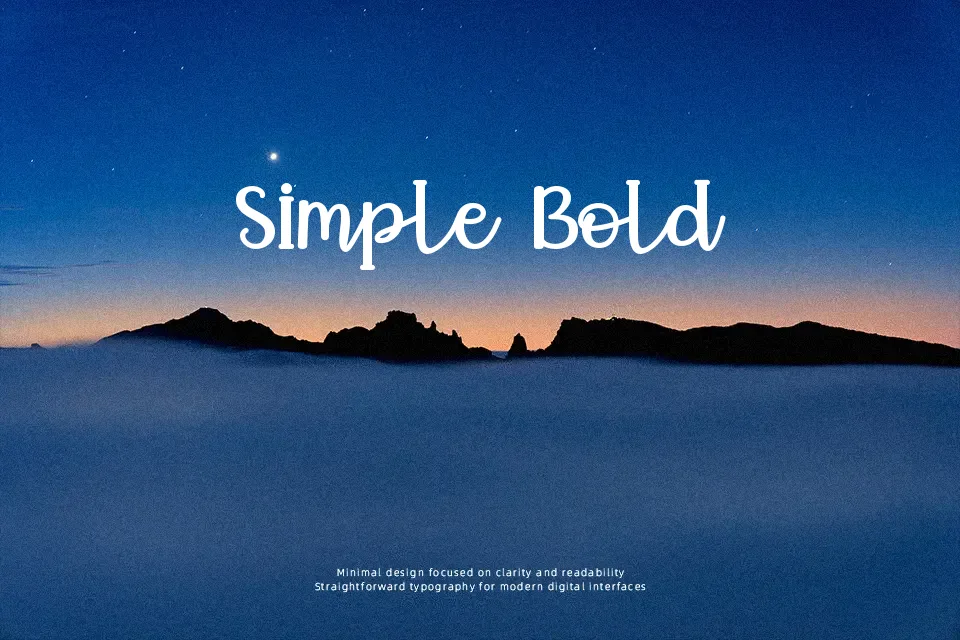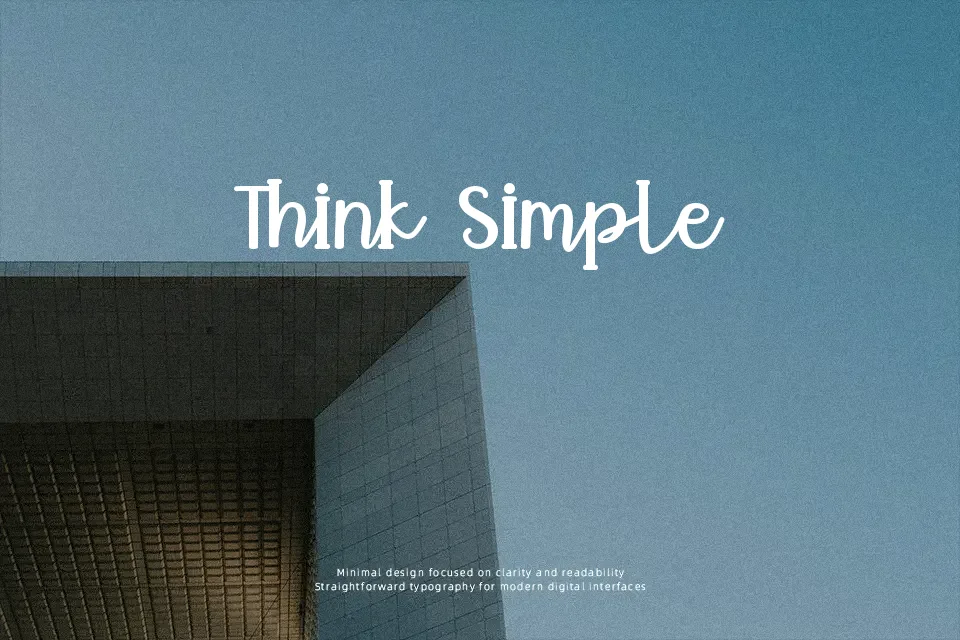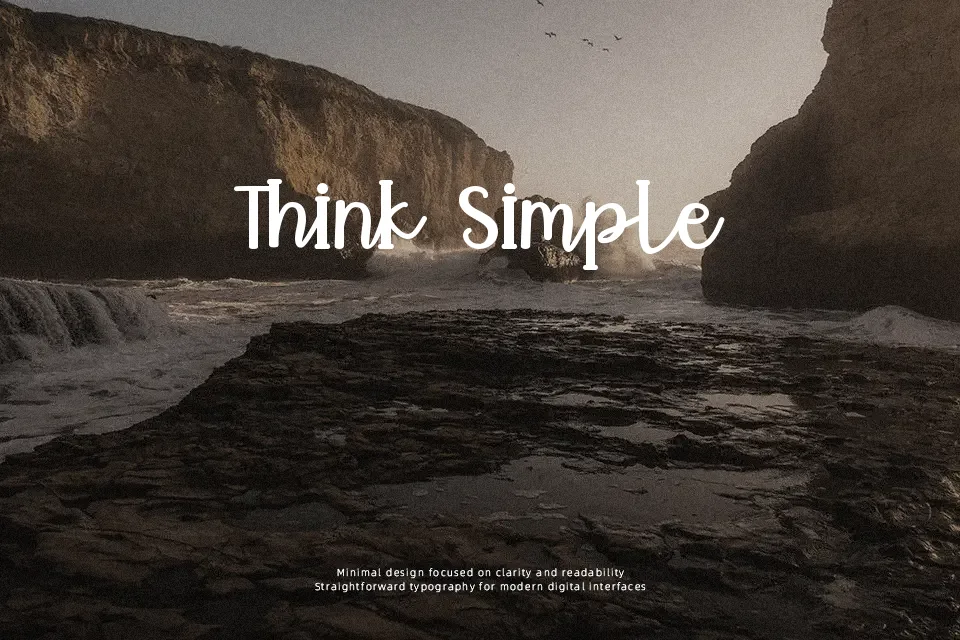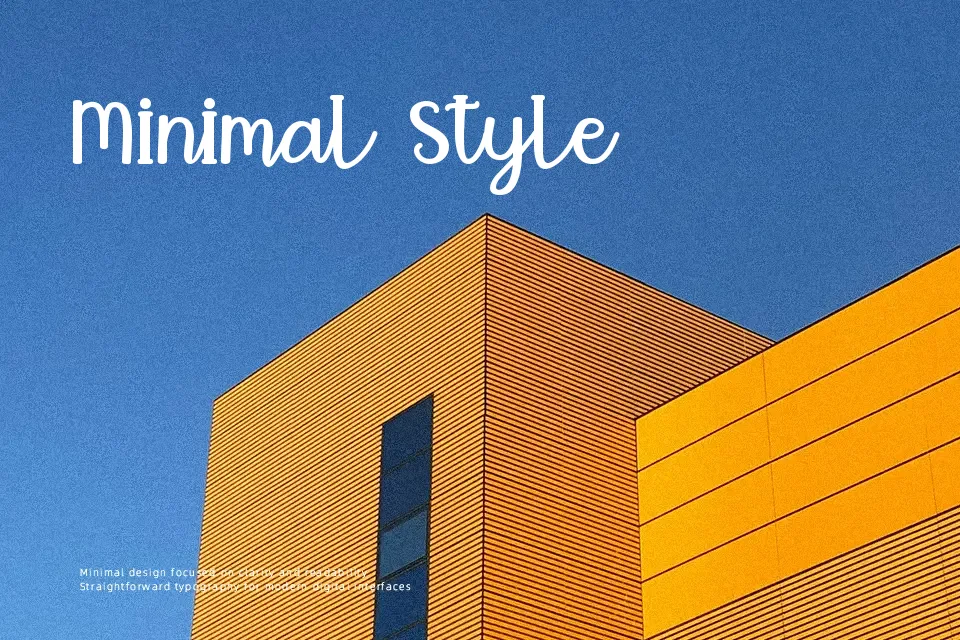
Christmas Energy Font
Christmas Energy Font features an animated decorative structure shaped by fluid brush strokes, irregular contours, and cheerful organic curves. The letterforms display moderate stroke contrast with relaxed proportions that produce an upbeat, informal rhythm across headline layouts. Spacing between individual glyphs remains moderately open, which helps maintain letter separation and clarity on festive signage, holiday product packaging, and seasonal promotional flyers. However, the ornate contours and energetic terminals become difficult to decipher at smaller sizes. Dense paragraphs and body copy suffer from reduced legibility, making the design far more effective as a prominent display choice for brief holiday titles.
Best For: seasonal greeting cards,holiday product packaging,festive event posters,party invitation headlines
Not Ideal For: continuous paragraph text,mobile user interface labels,corporate editorial documents,dense technical manuals
Perfect for christmas, headline, and holiday, with a creative and decorative style.